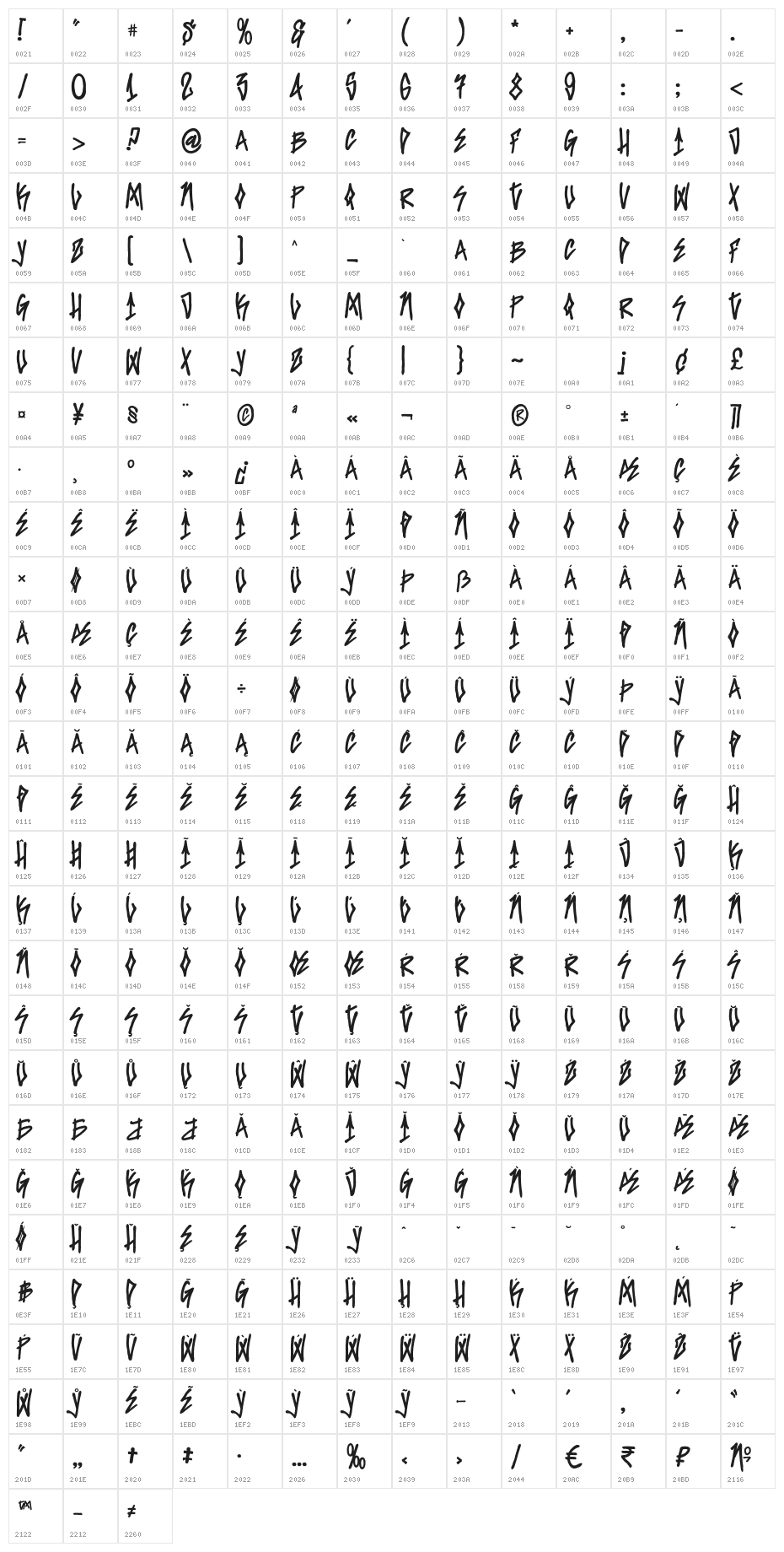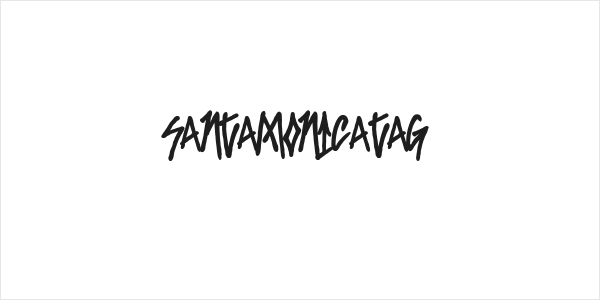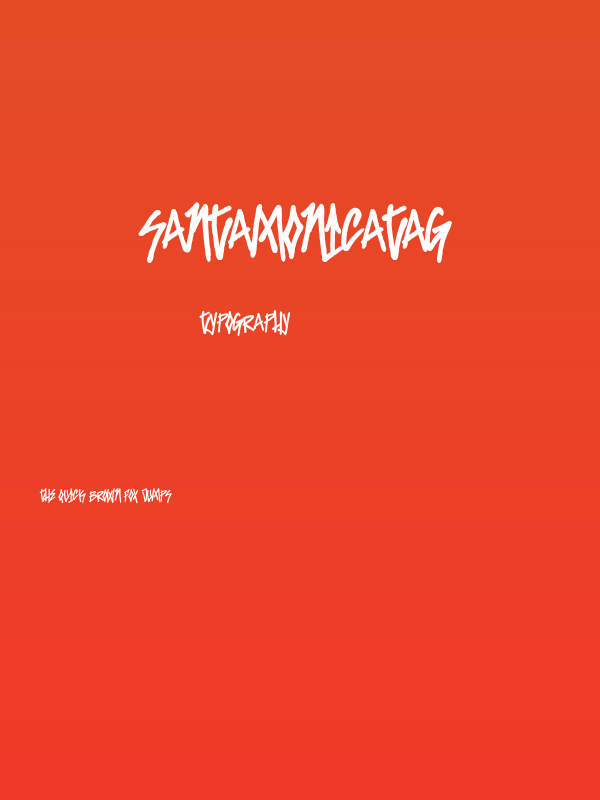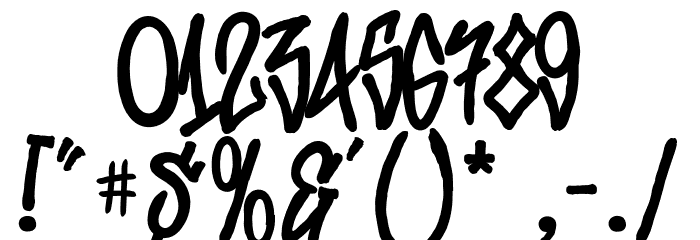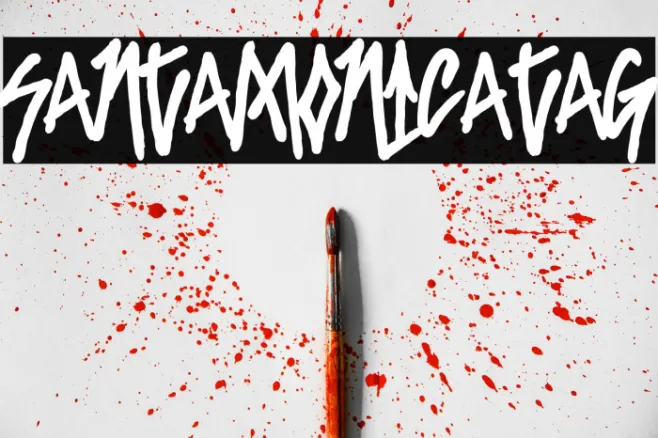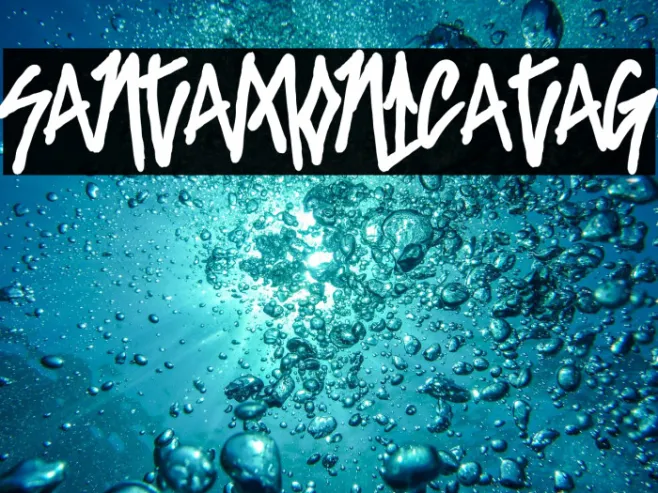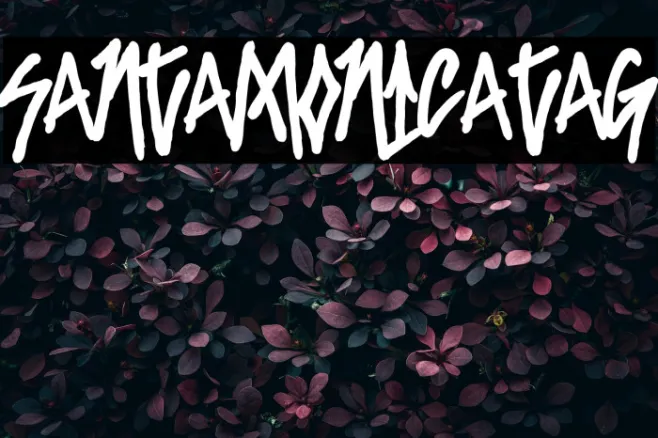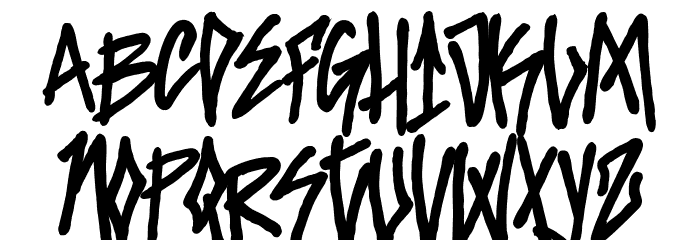
SantaMonicaTag Font
SantaMonicaTag Description
This font exudes a bold and energetic graffiti style, characterized by its sharp, angular lines and dynamic flow. The uppercase and lowercase letters share a consistent, edgy aesthetic, with exaggerated curves and pointed ends that convey a sense of movement and urban flair. The numbers and special characters maintain this theme, offering a cohesive look across all glyphs. The font's design is reminiscent of street art, making it ideal for projects that require a rebellious or youthful vibe. Its unique style ensures it stands out, making it perfect for eye-catching headlines or artistic designs.
| Overall Style | Urban, Graffiti, Energetic |
| Use Case | Headlines, Logos, Artistic designs |
| Proposed Projects | Ideal for street art designs, urban-themed posters, music album covers, and edgy branding projects. |